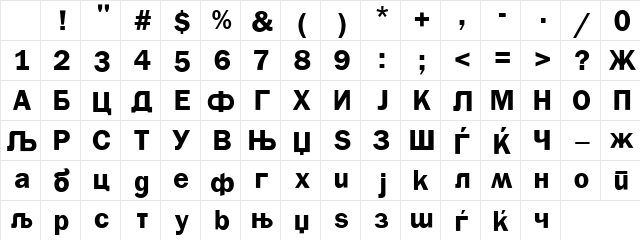
c_KirBOLD Light
Design Context for c_KirBOLD
c_KirBOLD is a composed and adaptable typeface that performs quietly and consistently across a wide range of design contexts. Its bold stroke weight gives it real presence on the page.